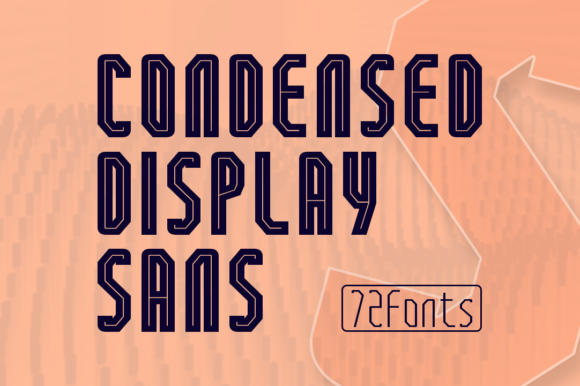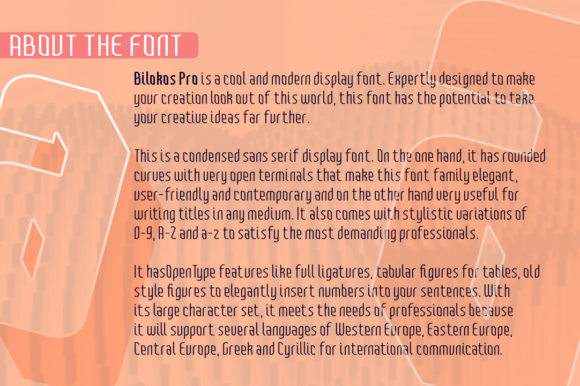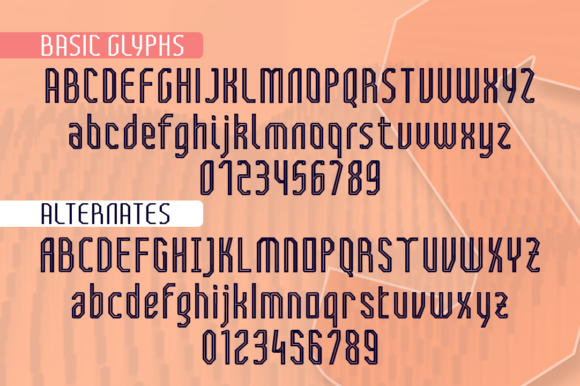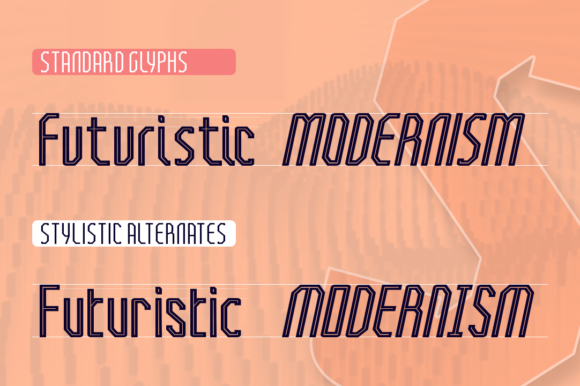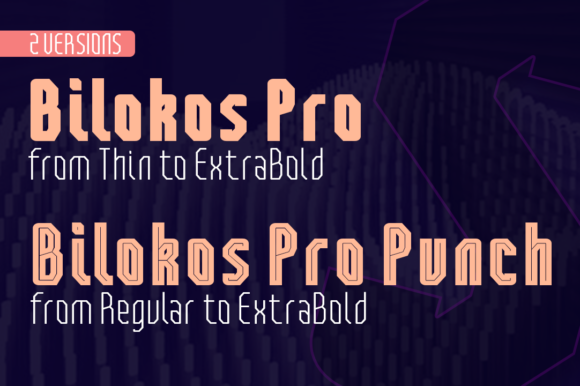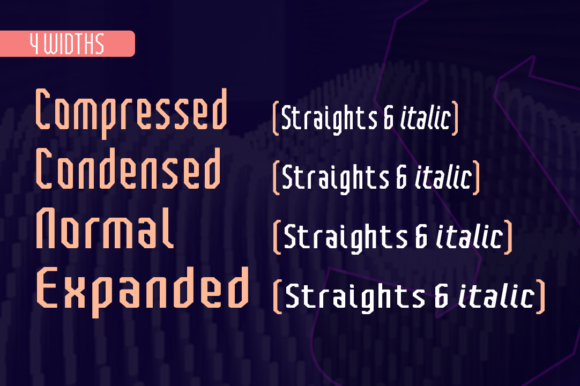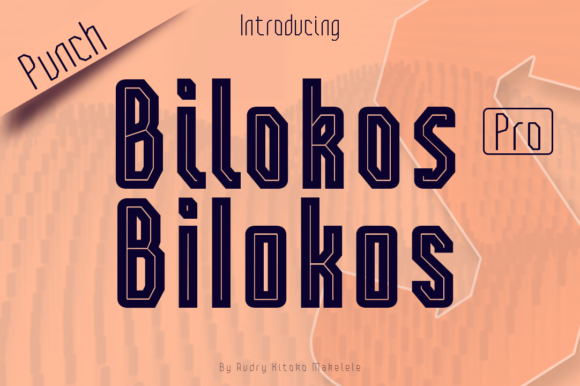
Bilokos Font: Elevate Your Designs with a Modern and Clean Display Font
In the world of typography, a good font can make all the difference in elevating your designs from ordinary to extraordinary. If you’re a designer, craftsperson, or simply someone who loves to dabble in creative projects, you’re likely always on the lookout for the perfect font to bring your vision to life. That’s where Bilokos comes in – a modern and clean display font that’s sure to brighten up each of your designs with its versatility and neat vibe.
What is Bilokos Font?
Bilokos is a thoughtfully crafted display font that embodies the perfect blend of modernity and cleanliness. Its sleek lines, balanced proportions, and meticulous attention to detail make it an excellent choice for a wide range of design projects. Whether you’re working on a logo, branding materials, posters, or digital media, Bilokos is designed to add a touch of sophistication and elegance to your work.
Key Features of Bilokos Font
- Modern and Clean Design: Bilokos boasts a contemporary design with clean lines and a minimalist aesthetic, making it perfect for projects that require a fresh and modern look.
- Versatility: This font is incredibly versatile, suitable for a variety of applications from digital media to print materials. Its adaptability ensures that it can be used in numerous contexts without losing its impact.
- Neat Vibe: The neat and organized feel of Bilokos makes it ideal for designs that require a professional and polished appearance. It’s sure to enhance the visual appeal of your projects.
- Endless Variations: One of the most exciting aspects of Bilokos is the endless variations you can create. Experiment with different sizes, weights, and styles to find the perfect combination that suits your design needs.
Why Choose Bilokos Font?
Choosing the right font for your project can be a daunting task, given the numerous options available. However, Bilokos stands out for several reasons:
- Legibility: Despite its modern and clean design, Bilokos doesn’t compromise on legibility. It’s clear and easy to read, making it suitable for both headings and body text.
- Uniqueness: While there are many modern fonts out there, Bilokos offers a unique blend of style and functionality that sets it apart from more generic options.
- Time-Saving: With Bilokos, you can save time that would otherwise be spent searching for the perfect font or tweaking a less-than-ideal choice. Its versatility and quality mean you can focus on other aspects of your design.
How to Use Bilokos Font in Your Designs
- Experiment with Sizes and Weights: Don’t be afraid to play around with different sizes and weights of Bilokos to create visual hierarchy and emphasis in your designs.
- Pair it with Other Fonts: Bilokos can be paired with a variety of other fonts to create interesting contrasts and dynamic typography. Look for fonts that complement its modern and clean aesthetic.
- Use it for Headings and Titles: Given its display nature, Bilokos is particularly well-suited for headings and titles. Use it to draw attention and add personality to your designs.
Bilokos font is a game-changer for designers and crafters looking to elevate their projects with a modern and clean display font. Its versatility, neat vibe, and the endless variations it offers make it an invaluable tool in your typography arsenal. Whether you’re working on a professional project or a personal craft, Bilokos is sure to bring a fresh and sophisticated touch to your designs. So, have fun with this beautiful font, explore its endless possibilities, and watch your designs come to life in ways you never thought possible.